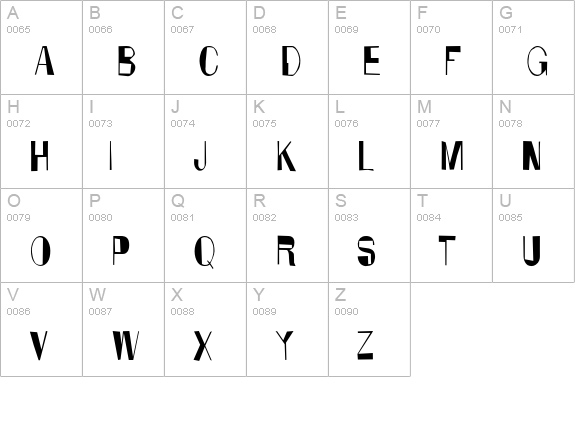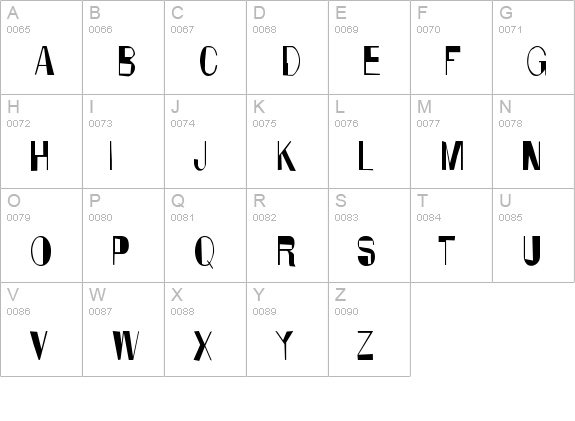
AnarkoCondensed Font Details
AnarkoCondensed is a sleek and modern font that exudes a sense of sophistication and style. With its condensed design and clean lines, this font is perfect for creating eye-catching headlines, logos, and branding materials. The versatility of AnarkoCondensed makes it suitable for a wide range of design projects, from elegant invitations to bold advertising campaigns. What sets AnarkoCondensed apart is not only its sleek appearance but also its accessibility. This font is available for free download at FontsMarket.com, allowing designers to access this stylish typeface without any cost. Whether you're a seasoned professional or a novice designer, AnarkoCondensed is a valuable addition to your font collection. Download AnarkoCondensed today and elevate your designs with its modern and sophisticated aesthetic.